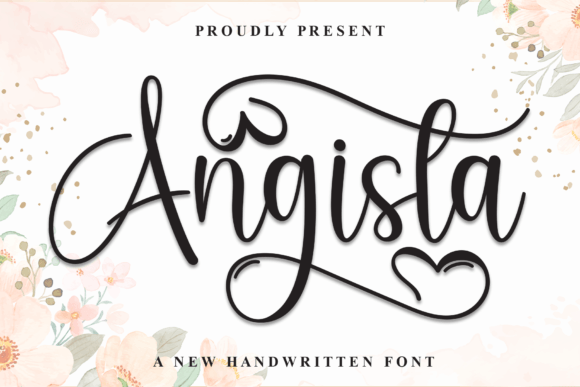
The Perfect Touch: Unveiling the Whimsy of Angista Font
Have you ever been brainstorming ideas for a project, only to find yourself scribbling out words in a notebook, letting the ink flow as freely as your imagination? For designers, those moments of creative freedom are precious. They’re when inspiration strikes, and the possibilities seem endless.
That’s exactly what the Angista Font was born out of – a desire to capture the essence of handwritten charm in digital form. This unique font boasts special letters with heart-shaped endings, adding a playful twist to any design. Whether you’re working on a wedding invitation, a children’s book, or a social media campaign, the Angista Font is the perfect way to infuse your project with a personal touch.
With its whimsical flair and versatility, the Angista Font is a valuable addition to any designer’s toolkit. Its charm is sure to captivate audiences and leave a lasting impression – making it a must-have for anyone looking to elevate their designs to the next level.
Key Features of Angista Font
- Unique Characteristic: Angista Font features a unique blend of modern and vintage elements, making it ideal for creating unique and eye-catching designs.
Angista Font Review
I recently had the chance to work with the Angista font, and I must say it’s been an interesting experience. Here are my thoughts.
- Unique design: Angista has a distinct style that sets it apart from other fonts. Its blend of modern and vintage elements is intriguing.
- Legibility: Despite its unique design, the font is surprisingly easy to read, making it suitable for a wide range of applications.
- Flexibility: Angista can be used for both body text and headings, offering a high degree of flexibility for designers.
- Limited character set: The font’s character set is somewhat limited, which may make it less suitable for certain types of projects.
- No bold weights: Angista lacks bold weights, which can make it difficult to create visual hierarchy in certain designs.
- Not ideal for small text: Due to its unique design, Angista may not be the best choice for small text sizes.
Overall, I think Angista is a solid choice for designers looking for a unique font with a modern twist. While it has its limitations, it’s a great option for projects that require a bit of personality and flair.
Tips for Getting the Most Out of Angista Font
Use Angista Font to create a vintage or retro feel in your designs.
Pair Angista with bold, bright colors to create a striking contrast.
Experiment with different font sizes and styles to create a unique look.
Angista Font is ideal for:
Designing vintage-inspired posters and flyers.
Creating retro-themed social media graphics.
Adding a touch of nostalgia to your branding materials.